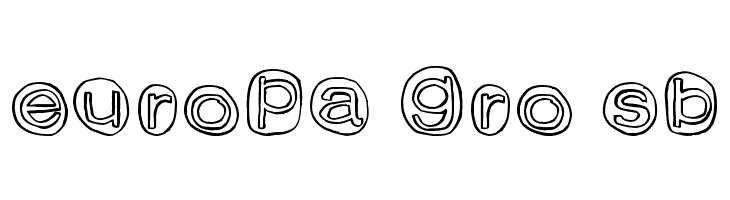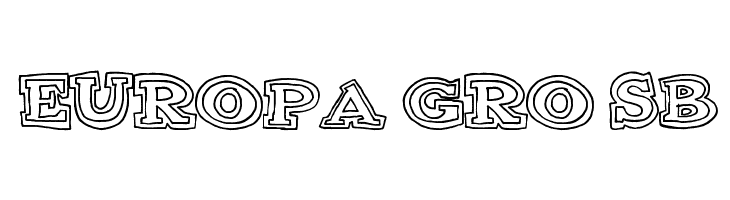
A playful dingbat font with clover icons and dancing silhouettes.
A playful, hand-drawn font with bold, dynamic strokes and a lively style.
A dynamic and elegant script font with flowing, cursive letterforms.
A dynamic, cursive script font with a flowing, handwritten style.
A bold, playful font with rounded characters and a vintage circus vibe.
A playful, rounded font with a unique outlined, bubble-like style.
A modern, geometric font with bold, rounded edges and unique character cuts.
A playful, bold font with rounded edges and a whimsical style.
A bold, geometric font with a strong, block-like design.
A bold, geometric font with a modern, industrial feel.
A bold, brush-style font with a unique dripping effect, perfect for artistic projects.
A bold, textured font with a distressed, hand-drawn appearance.
A playful, 3D cartoon-style font with thick outlines and a hand-drawn look.
A bold, textured, hand-drawn font with a dynamic and artistic style.
A bold, outlined font with a playful and dynamic style.
A flowing, elegant script font with a handwritten feel.
A bold, cursive script font with a fluid and elegant style.
A bold slab serif font with a modern yet classic style.
A bold, decorative font with intricate detailing and artistic flair.
A geometric and precise font with sharp, angular shapes.
A geometric, industrial font with sharp, precise lines and uniform stroke width.
A bold, playful font with whimsical, artistic shapes and unique angles.
A lively, flowing script font with a casual, handwritten style.
A bold, playful font with a shadow effect, perfect for lively designs.
A bold, high-contrast font with sharp serifs and a vintage-modern style.
A bold, geometric font with a modern yet vintage-inspired style.
A sleek, modern font with thin, elongated letterforms and a sophisticated style.
A playful, bold font with a 3D shadow effect and rounded, irregular characters.
A bold, abstract font with fragmented and deconstructed characters.